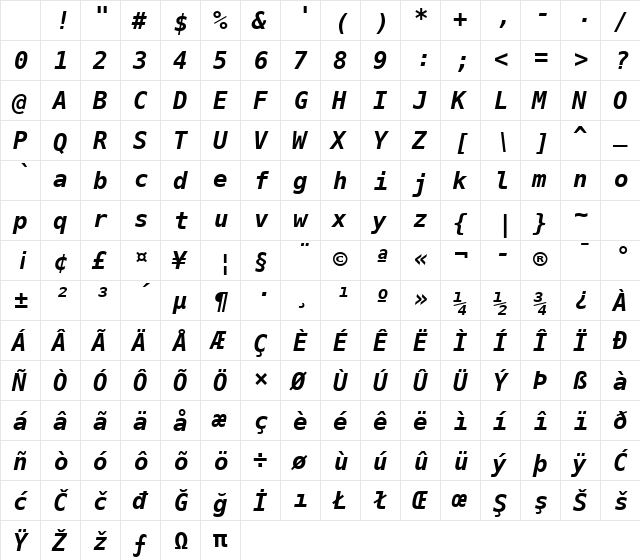
Complete BitstreamVeraSansMono Nerd Font Bold Oblique glyph index. Displaying only characters natively supported by BitstreamVeraSansMono Nerd Font Bold Oblique font.
BitstreamVeraSansMono Nerd Font uses fixed-width spacing throughout, giving it the structured, systematic character associated with coding environments and technical documentation. The slanted form adds forward momentum and visual energy. Its bold stroke weight gives it real presence on the page.